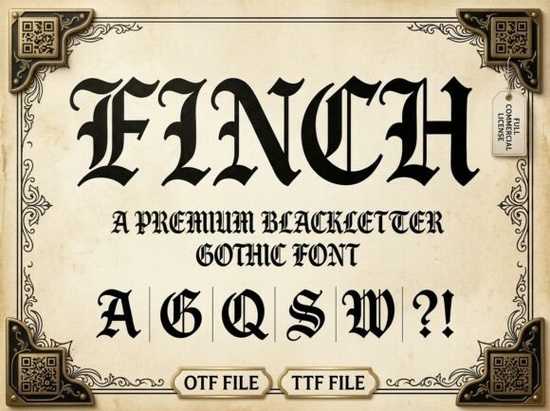
Finch Font is a striking choice for anyone looking to add a touch of dark elegance to their designs. This Blackletter font brings a unique blend of historical charm and modern sharpness, making it ideal for a variety of creative projects. Whether you're designing for a tattoo studio, crafting album art, or working on vintage-inspired labels, Finch offers the perfect balance of dramatic flair and readability.
Designed with attention to detail, Finch features dramatic vertical strokes and intricate diamond-shaped terminals that give it a strong, authoritative presence. The font’s aggressive style makes it stand out while maintaining clarity in contemporary layouts. This versatility ensures that Finch can be used across different mediums without losing its impact.
Why Choose Finch Font?
For designers and creators who want to make a statement, Finch Font delivers a powerful visual identity. Its Gothic aesthetic is perfect for projects that require a sense of history and strength. The font’s clean lines and bold structure ensure that it remains legible even at smaller sizes, making it suitable for both large-scale and detailed work.
If you’re working on a logo for a craft brewery, a cinematic title for a fantasy film, or branding for a streetwear line, Finch provides the right tone and texture. Its ability to convey authority while remaining versatile makes it a go-to option for many professionals in the design industry.
Best Uses for Finch Font
- Heavy metal album art: Finch’s dramatic look matches the intensity of the music genre.
- Tattoo studio branding: The font adds a timeless and edgy feel to logos and signage.
- Vintage-inspired labels: Perfect for crafts, handmade products, or retro-style packaging.
- Streetwear apparel: Adds a bold, historical edge to brand names and slogans.
Whether you're a small business owner, a print-on-demand seller, or a creative hobbyist, Finch Font can elevate your work with its distinctive style. It’s especially useful when you need to communicate a sense of tradition and strength through typography.
How Finch Font Stands Out
Unlike many other Blackletter fonts, Finch manages to maintain a level of clarity that allows it to work well in modern design contexts. Its structured yet expressive form gives it an edge over more traditional options that may feel too ornate or difficult to read. This makes Finch a practical choice for those who want to use Gothic-style typography without compromising on usability.
The font’s design also includes a range of weights and styles, allowing for greater flexibility in different projects. This adaptability ensures that Finch can be used in a wide array of applications, from headlines to body text, without losing its character.
For those looking to expand their font library, Finch Font is a standout choice that combines historical inspiration with modern functionality. It’s a reliable tool for anyone who wants to add depth and character to their design work.
Final Thoughts
Finch Font is more than just a stylish typeface it’s a practical solution for designers who want to convey a strong, historical presence. Its combination of medieval influence and modern precision makes it a valuable addition to any creative toolkit. Whether you're working on a personal project or a professional design, this font offers the right balance of aesthetics and usability.
Before finalizing your design, consider how the font will fit into the overall look and feel of your project. Testing it in different sizes and contexts can help you determine if it meets your needs. With its bold character and clear structure, Finch Font is a strong contender for a wide range of applications.
If you’re looking for a font that blends old-world charm with modern clarity, Finch Font is worth exploring. Its unique style and practicality make it a great choice for a variety of creative uses.